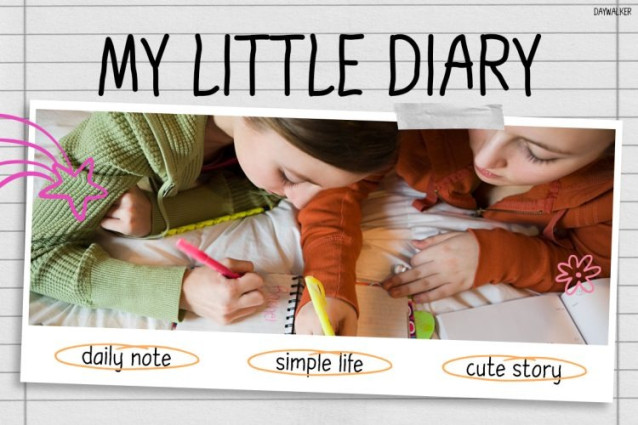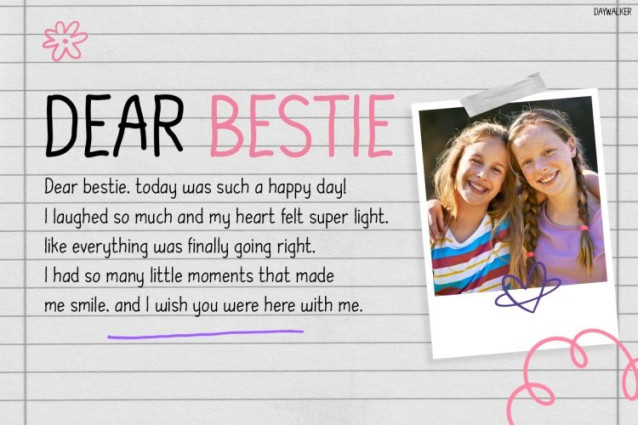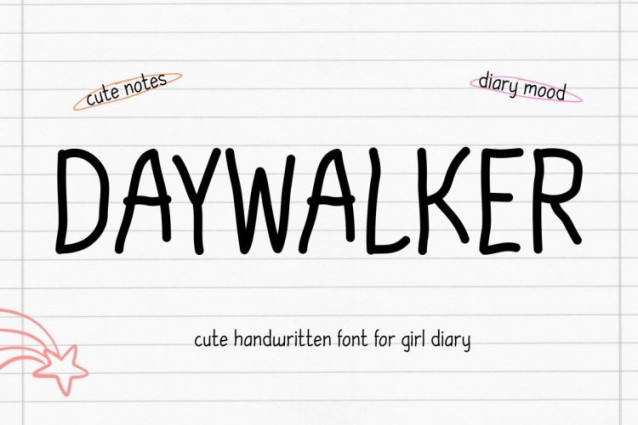
Daywalker Handwritten Font
Daywalker Handwritten Font is a vibrant and expressive typeface designed to bring energy and creativity into kids-focused designs. At first glance, its bold shapes and playful structure create a fun and modern visual impact. Moreover, the slightly quirky letterforms add personality, making every word feel lively and engaging. Because of its strong and clear design, the font remains highly readable while still looking unique and eye-catching. In addition, the modern touch gives it a fresh digital vibe, which makes it perfect for today’s creative projects. As a result, Daywalker blends fun aesthetics with functionality, making designs feel both exciting and easy to understand.
Kids Font Daywalker is a playful display font built to make designs stand out with bold character and fun energy. Not only does it feature dynamic and expressive letterforms, but it also works perfectly with bright colors, creative layouts, and digital-style visuals. Furthermore, the font adds a modern twist to kids typography, making it suitable for both playful and trendy designs. Therefore, whether you are creating digital content or print materials, Daywalker brings a lively and engaging feel. Ultimately, it transforms simple text into bold visuals that capture attention instantly.